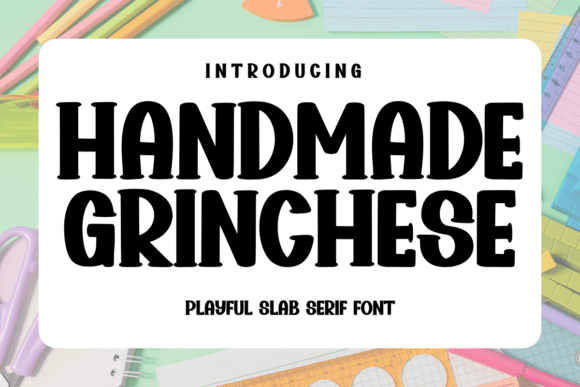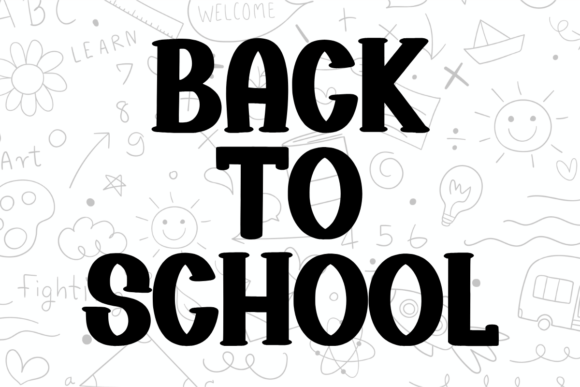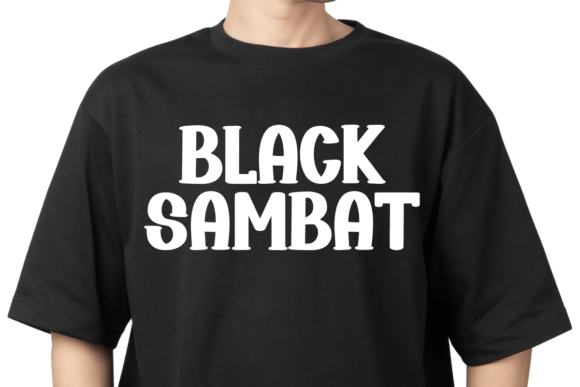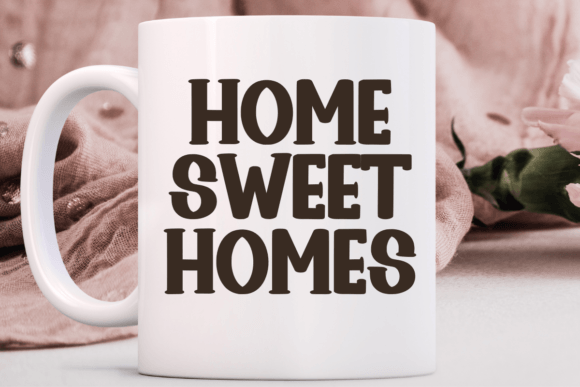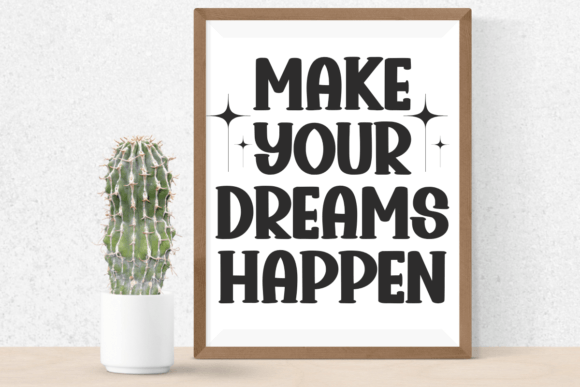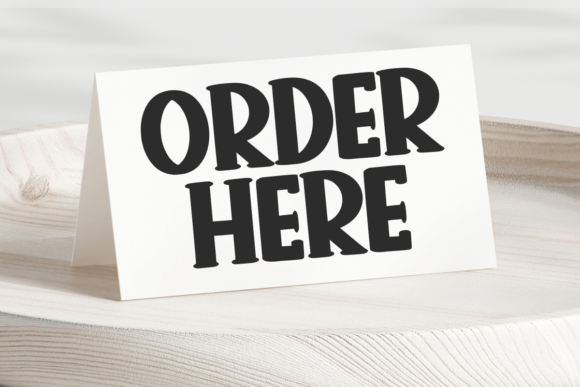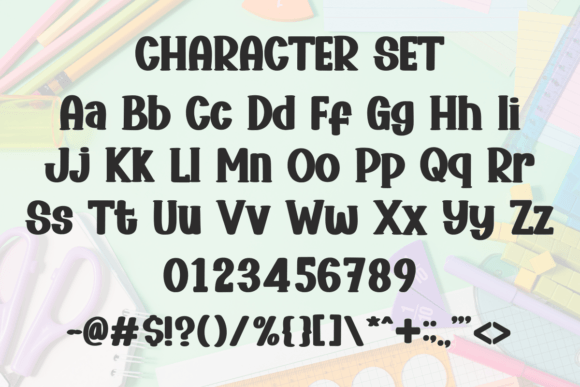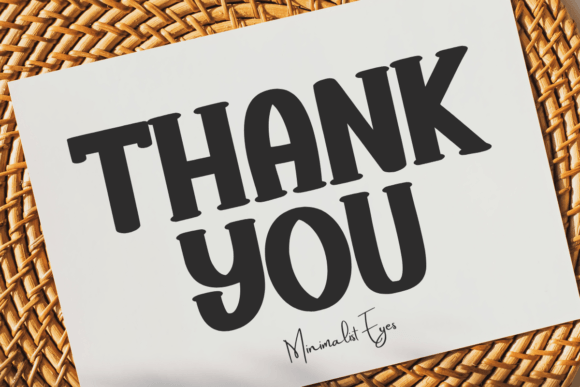
Handmade Grinchese Font
About Handmade Grinchese Font
Handmade Grinchese is a thick and playful slab serif font. The wide characters and chunky serifs make this font ideal for eye-catching designs. You can use it for headlines, t-shirt typography, banners, product labels, and many more.